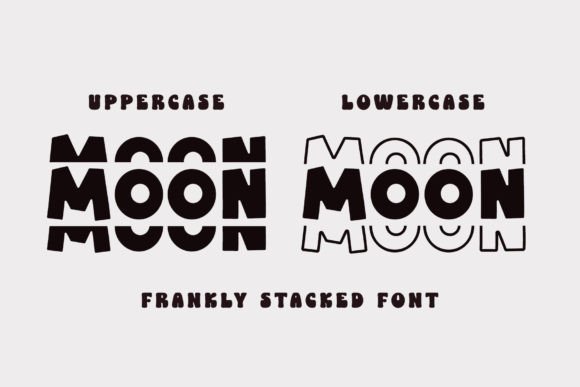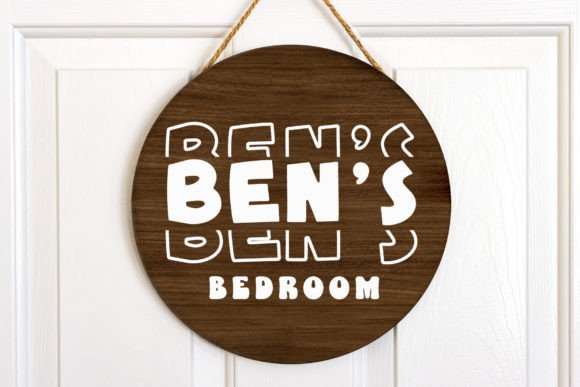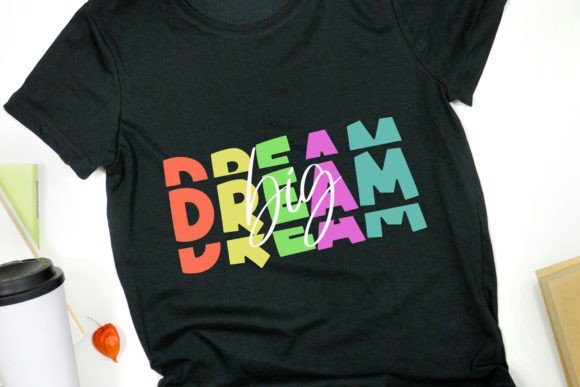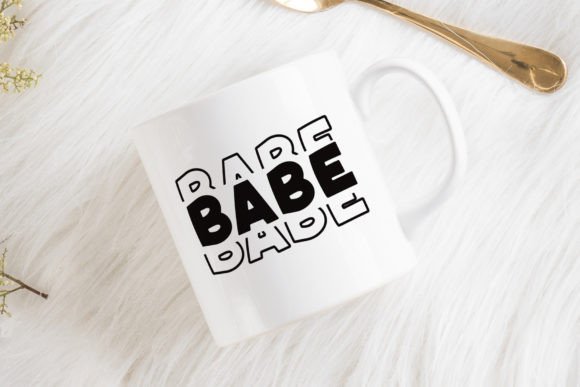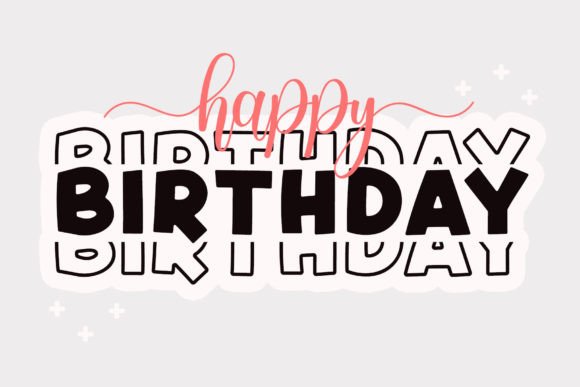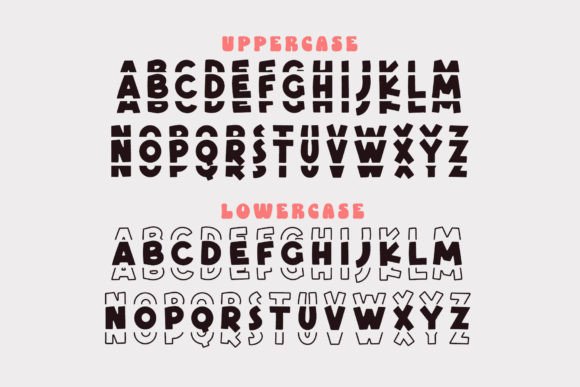
Introduction to Frankly Font
Do you ever find yourself rummaging through your stash of craft supplies, searching for the perfect font to match your creative vision? I know I do! It’s that moment of excitement when you stumble upon a design resource that makes all your projects pop – and that’s exactly what happens when you discover the delightful Frankly Font.
As a designer, you know how valuable it is to have a high-quality font that can elevate your creative project from ordinary to extraordinary. With its bold and cute style, Frankly Font is the perfect addition to any design collection. Whether you’re working on a poster, t-shirt quote, or mug design, this font is sure to bring a smile to your customers’ faces.
One of the best things about Frankly Font is its versatility – it’s available for free download with a transparent background, making it easy to use in a variety of design applications. In this article, we’ll take a closer look at what makes Frankly Font so special and how you can incorporate it into your next creative project.
Key Features of Frankly Font
- High-quality, professional font design ideal for creative projects and design resources.
- Frankly Font is a unique and versatile design resource that can add a touch of elegance to any creative project.
Honest Review: Frankly Font
I’ve had the chance to play around with the Frankly Font, and I have to say it’s a solid addition to any designer’s toolkit. As a free download, it’s a great resource for those working on creative projects on a budget.
- ✨ The font is highly customizable, making it perfect for a wide range of design applications.
- ✨ The transparent background option is a nice touch, allowing for seamless integration with any background image or color.
- ✨ High quality typography is always a must, and the Frankly Font delivers with crisp, clean lines.
While it’s a great font, there are a few limitations to consider:
- ⚠️ Limited character set may cause issues for those working with non-Latin scripts.
- ⚠️ Not ideal for small text sizes, as it can become difficult to read.
Overall, I’d say the Frankly Font is a great choice for designers looking for a high-quality, free font. While it may not be perfect, its strengths far outweigh its weaknesses. With a bit of creativity, it’s sure to elevate any design project.
Frankly Font is a high-quality, free download that can elevate your creative project. Its transparent background makes it perfect for overlaying on images or backgrounds, allowing for endless design possibilities.
Experiment with different font sizes and colors to create a unique visual effect. Use it in combination with other design elements to add depth and interest to your project.
Frankly Font is perfect for:
- Infographics and data visualizations
Compared to Frankly Font, Great Vibes Font has a more refined and luxurious feel, making it suitable for upscale designs and professional branding. While Frankly Font is great for casual designs, Great Vibes Font adds a sense of elegance and sophistication.
Pacifico Font is a stunning, modern script font perfect for design projects requiring a touch of warmth and relaxation. It’s ideal for travel brochures, food packaging, and wellness branding where a calming and natural feel is needed.